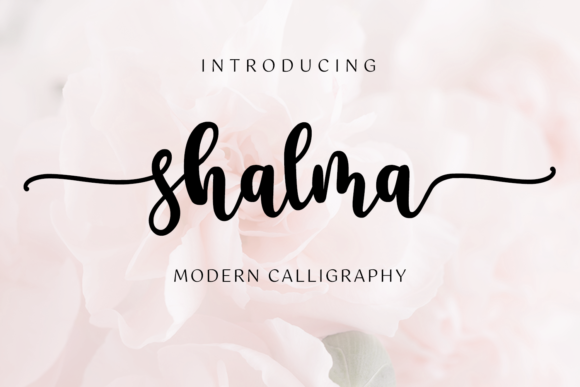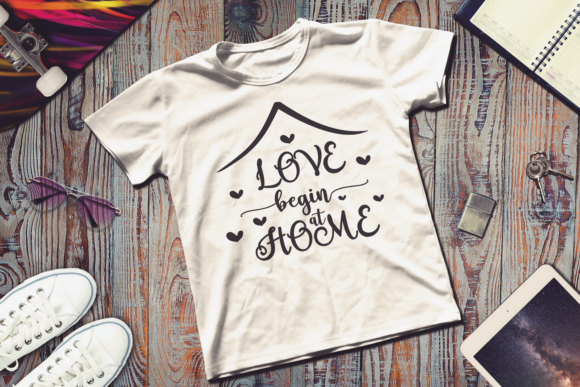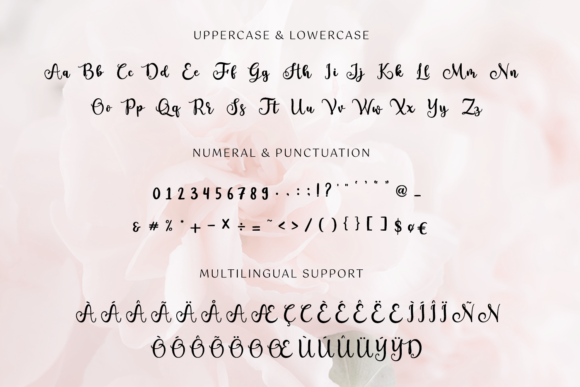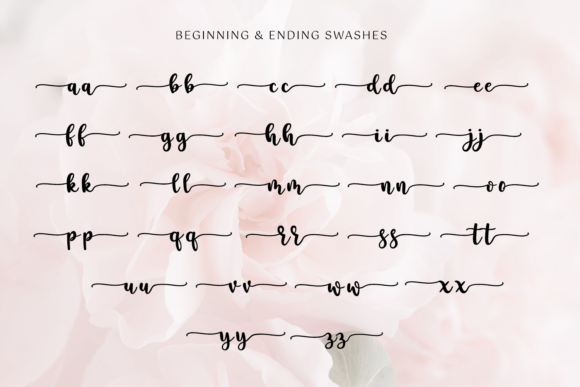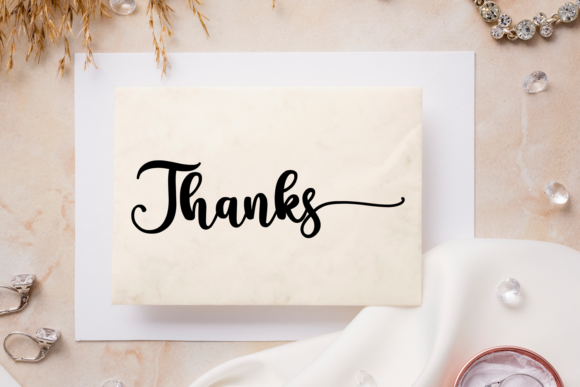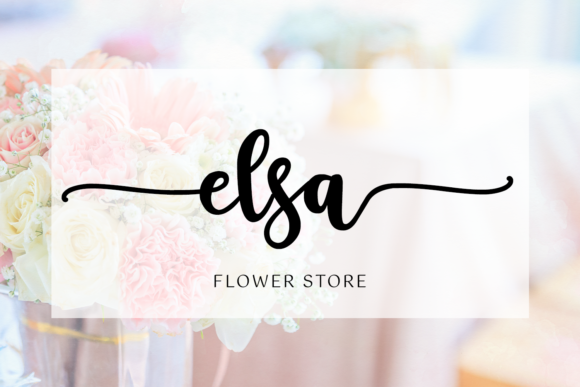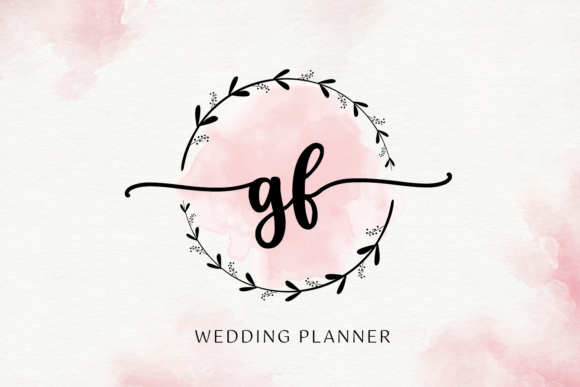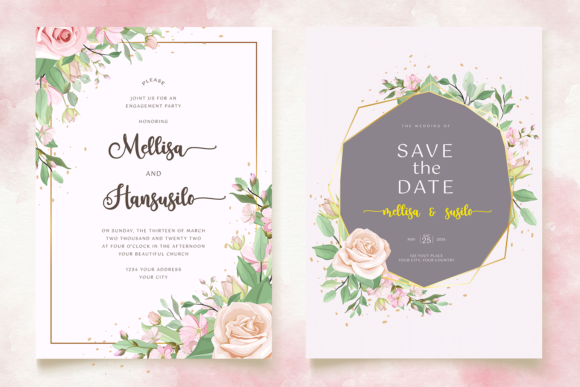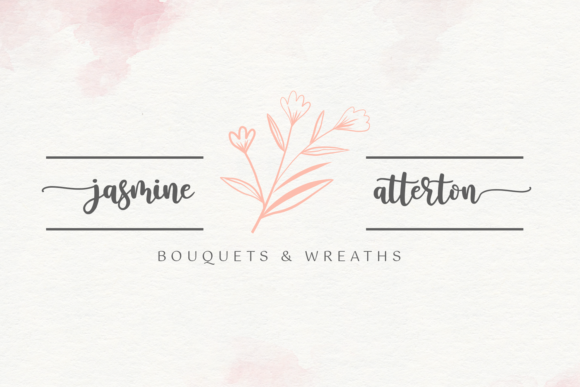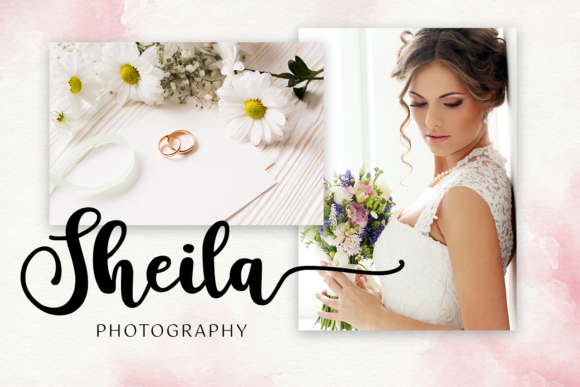
Shalma Font
About Shalma Font
Shalma is a bold and beautiful handwritten font, carefully handcrafted to become a true favorite. This font is the perfect fit for all of your logos, branding, social media, and crafty DIY projects.